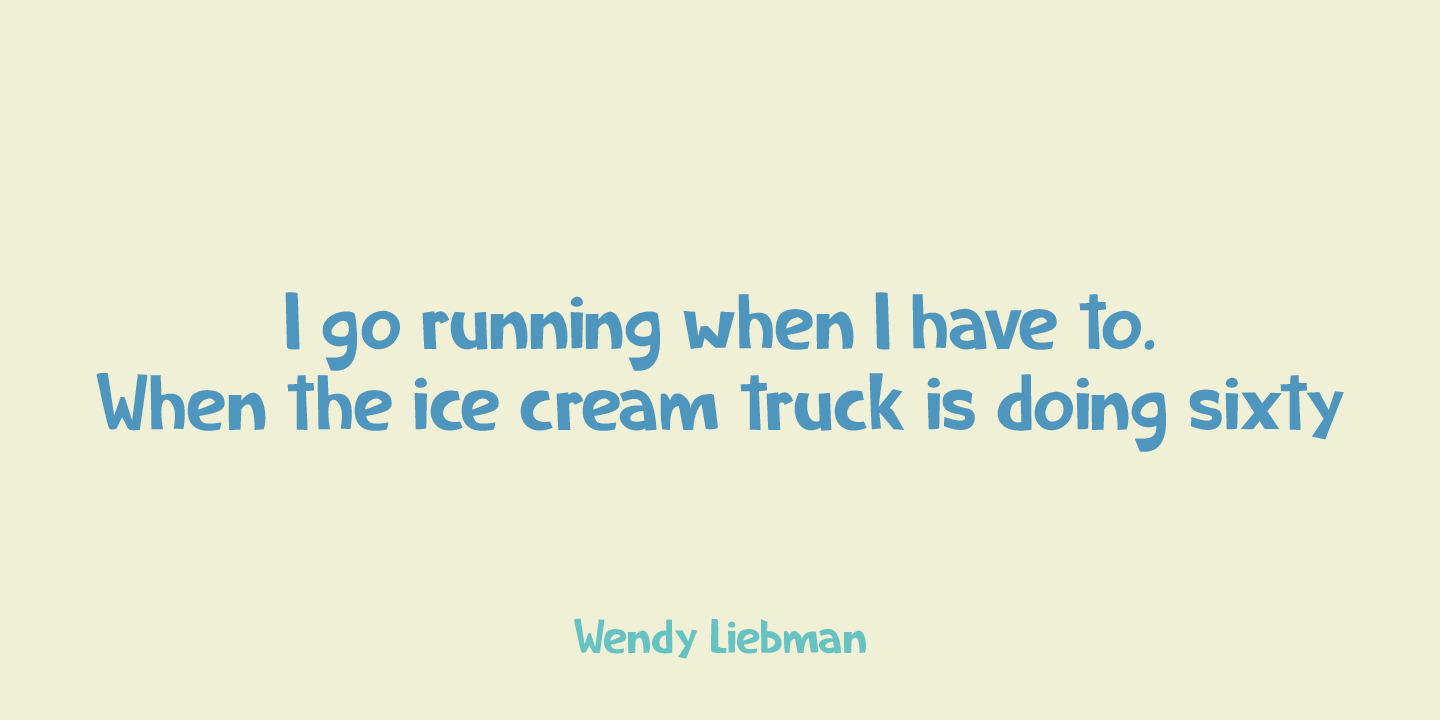
Discover the playful Ice Cream Man Font Free Download, a wobbly, comic-style typeface by Hanoded that adds a fun, hand-drawn vibe to your designs. This font is perfect for creating a cheerful, kid-friendly aesthetic. However, please note that you must purchase this font for commercial use. For testing purposes, you can download it for free and explore its quirky charm.
The Ice Cream Man Font is ideal for various applications, such as designing vibrant children’s book covers, crafting eye-catching ice cream packaging, creating playful posters, or adding a whimsical touch to branding and social media graphics. Its versatility makes it a top choice for projects that need a lighthearted, approachable look.
Why is the Ice Cream Man Font Free Download so exciting? Its sloppy, hand-crafted design captures a joyful, carefree energy, inspired by the playful spirit of childhood and summer treats. The font’s wobbly strokes and bold, rounded shapes ensure your designs stand out with a fun, nostalgic appeal.
The Ice Cream Man Font family includes two styles: Regular and an alternate variant, offering flexibility for diverse design needs. These variations allow you to experiment with different effects, ideal for both print and digital media.